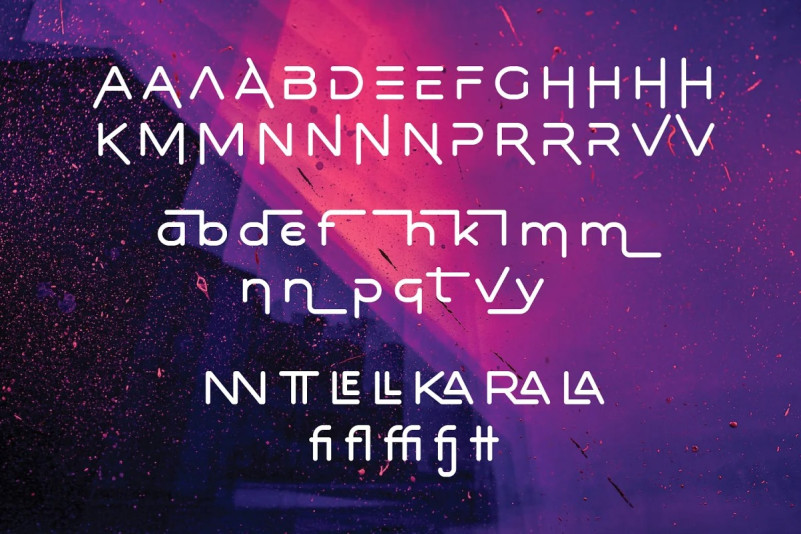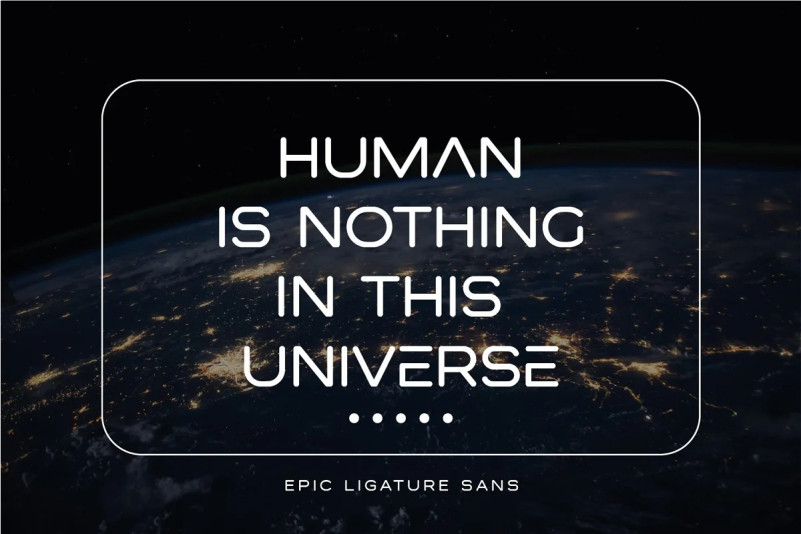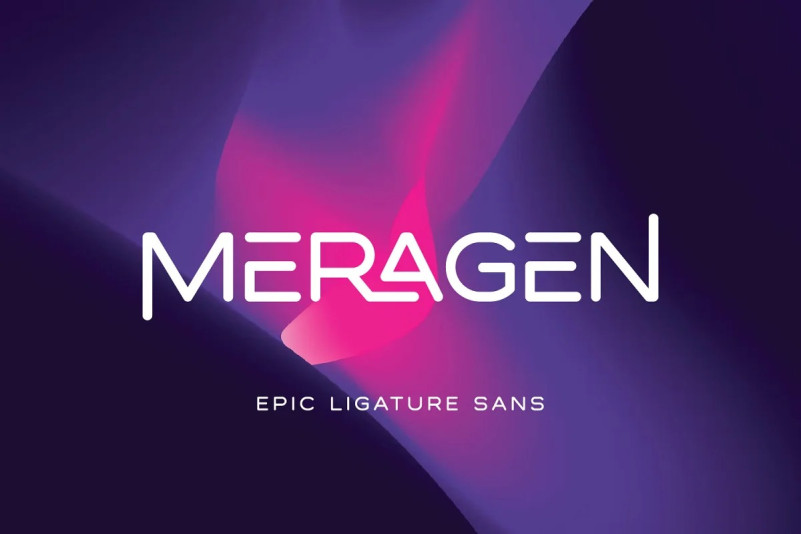
Meragen Font
Meragen Sans Serif Font is a versatile yet stylish sans-serif font that includes discretionary ligatures and stylistic alternates. Perfectly match the modern design theme for many scoops of projects such as logotype, corporate branding, poster design, business cards, headline cover, and much more.